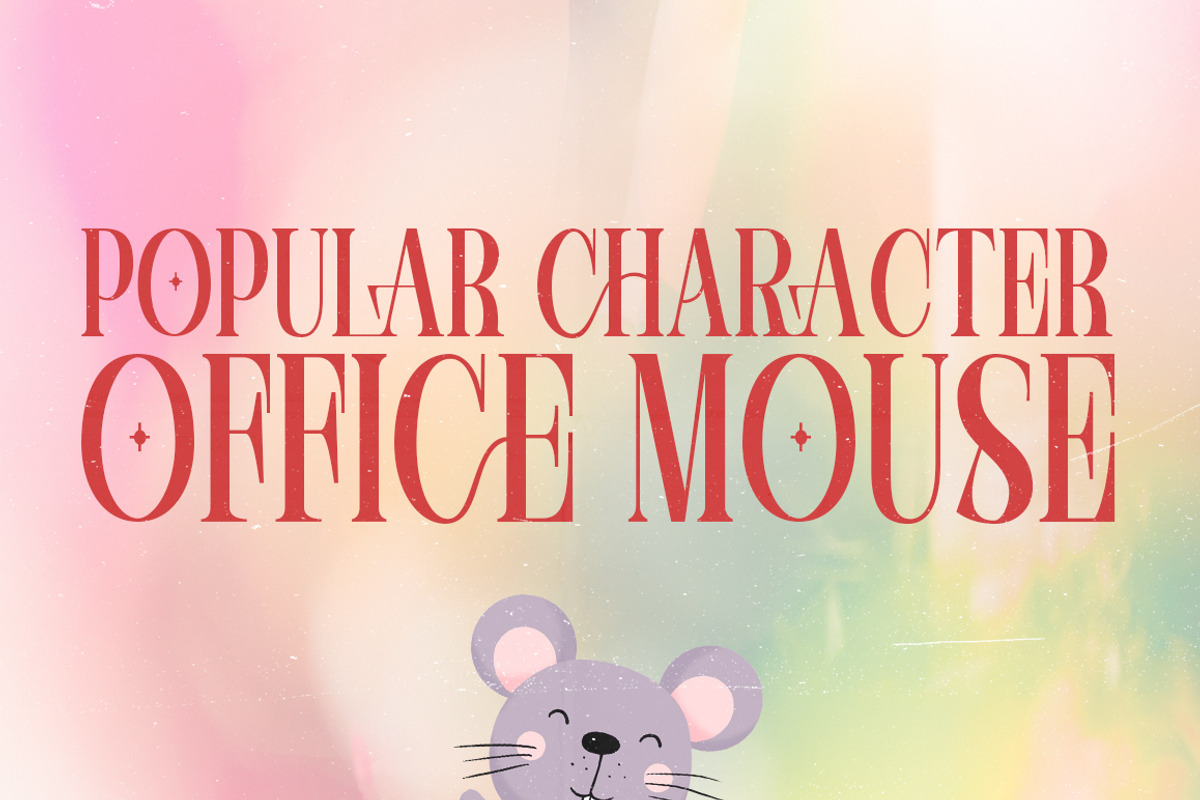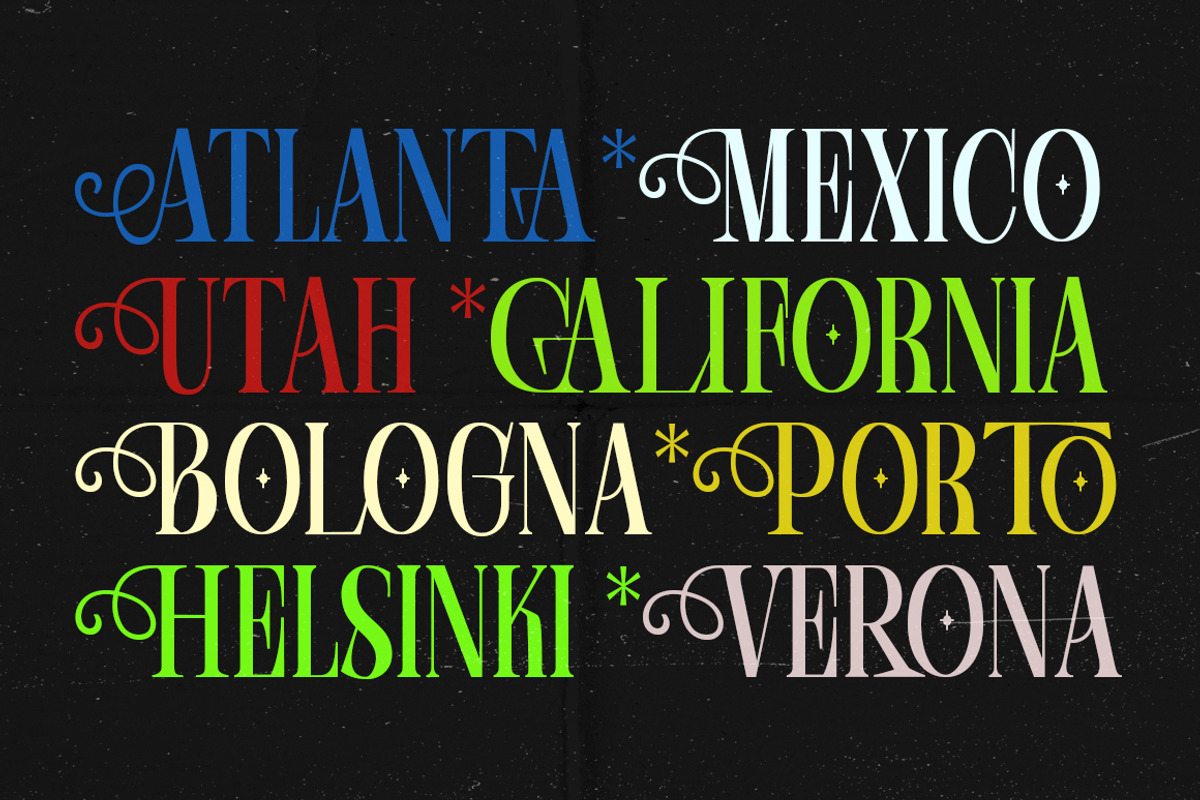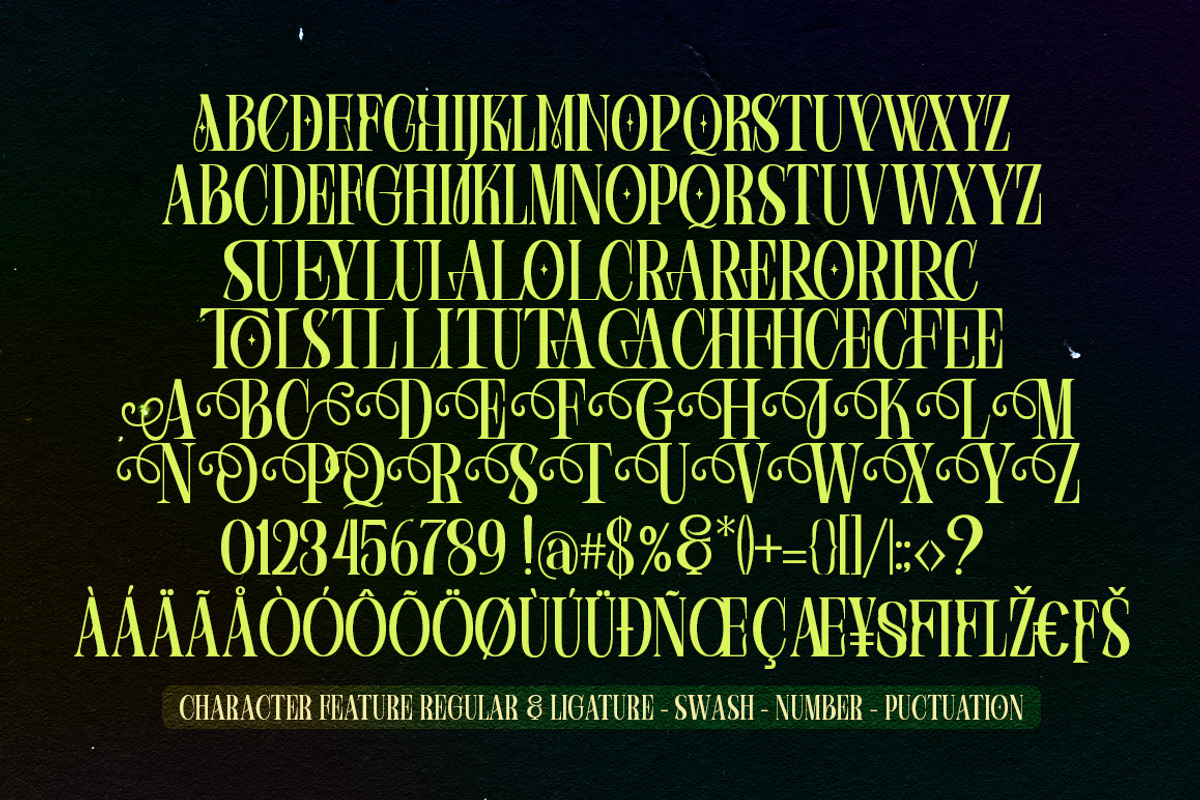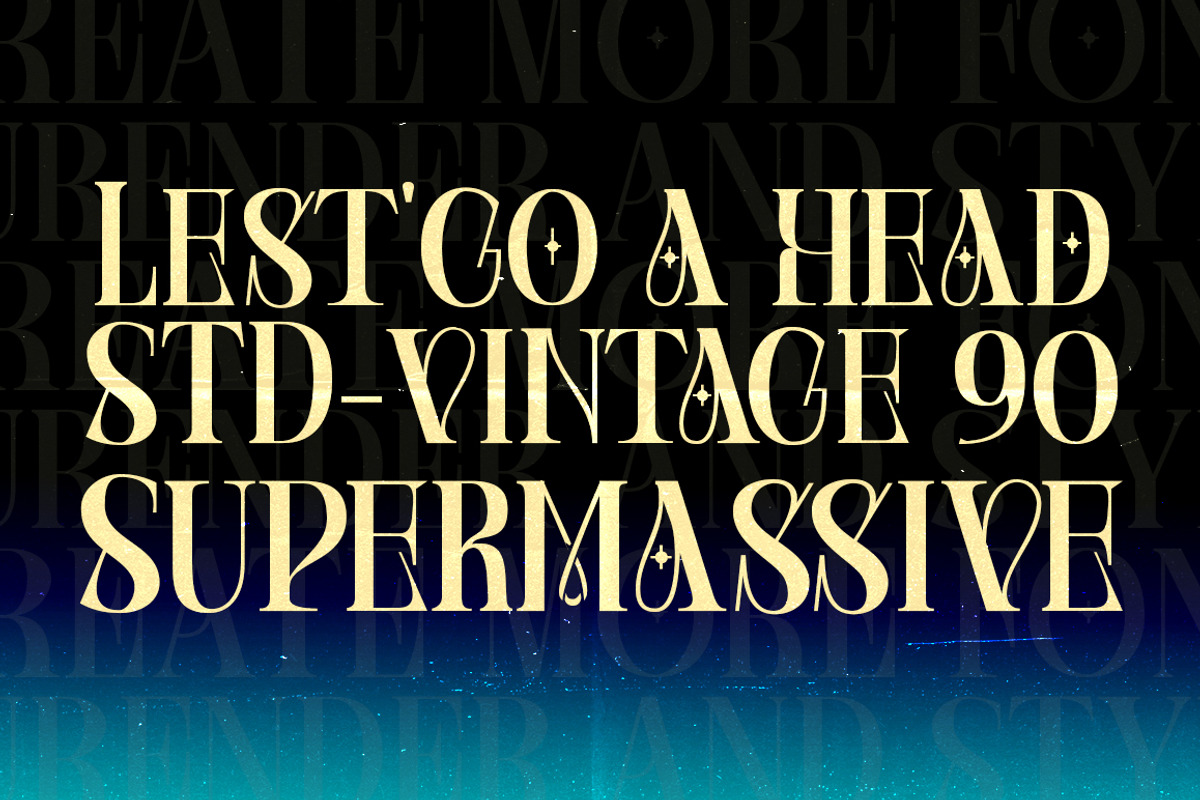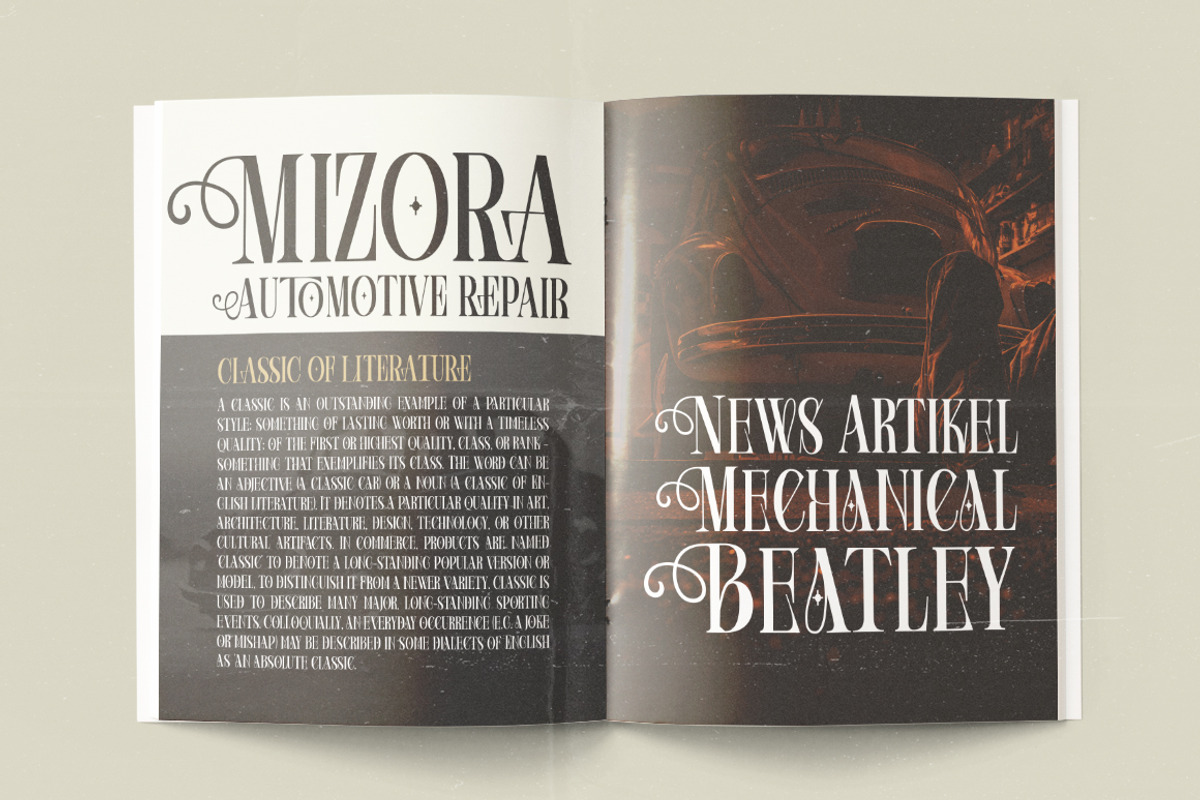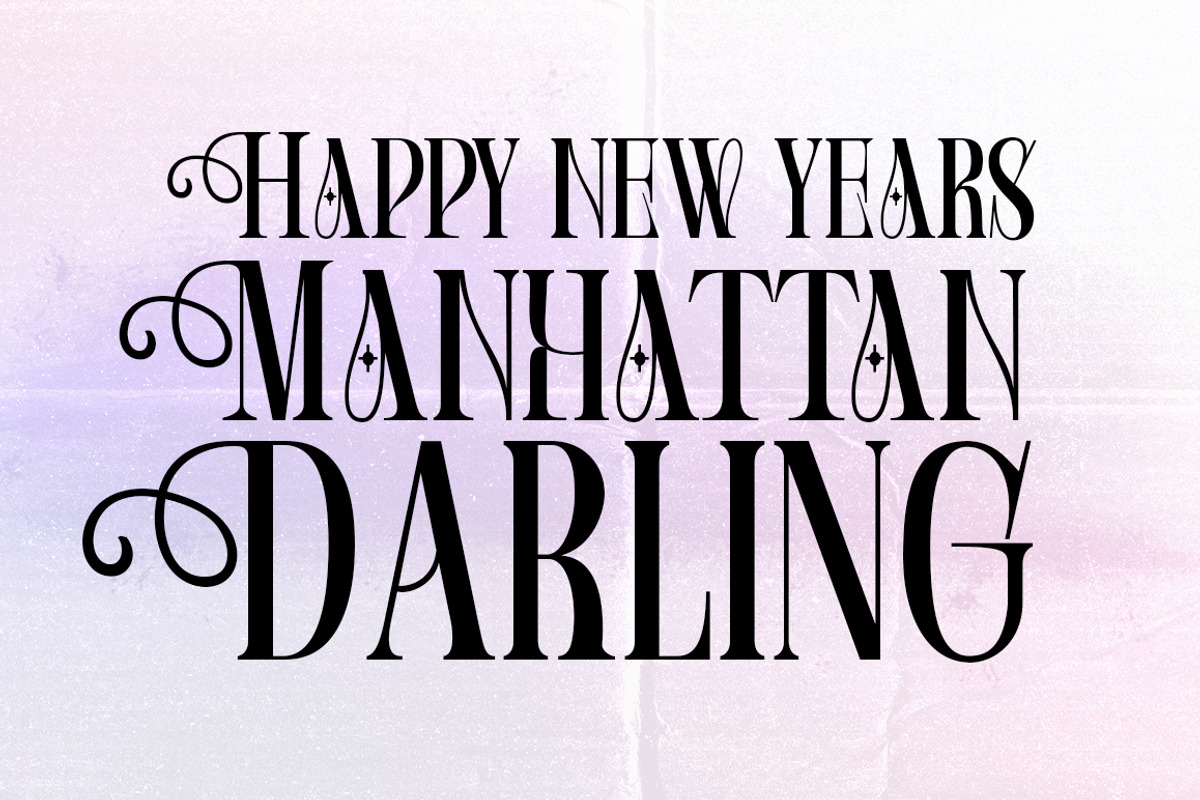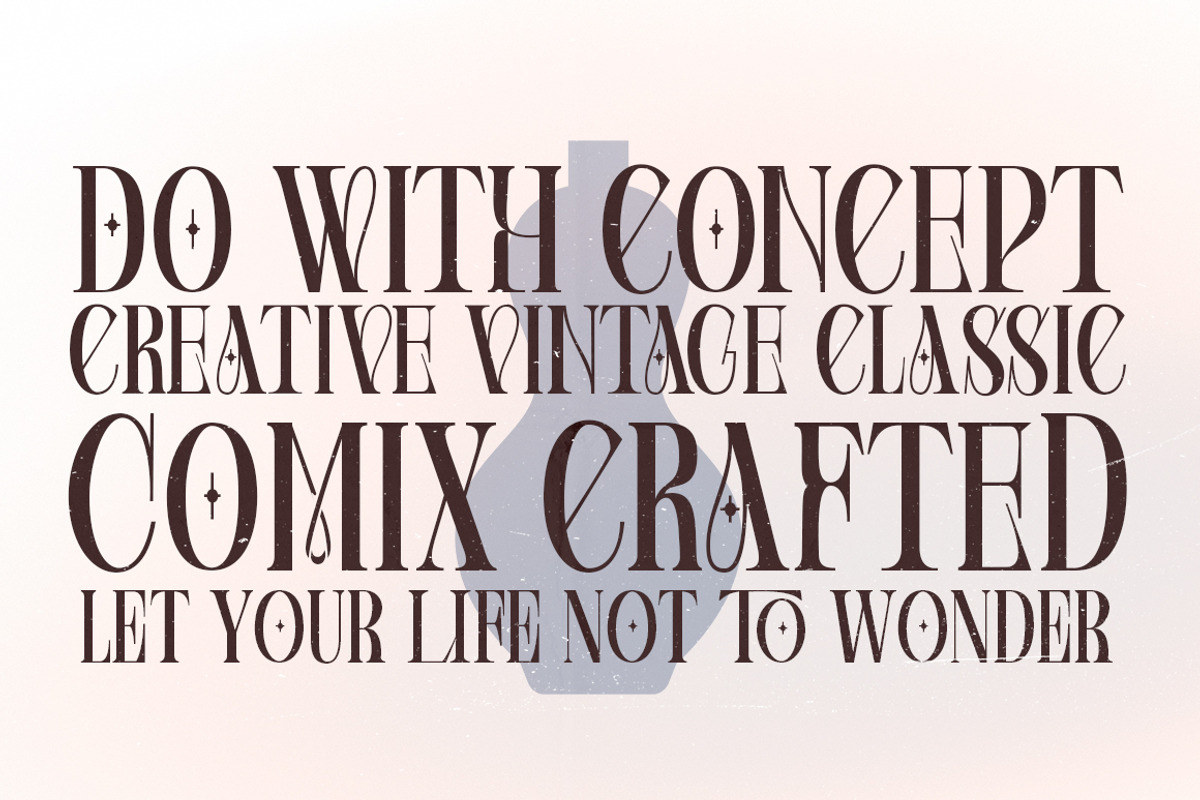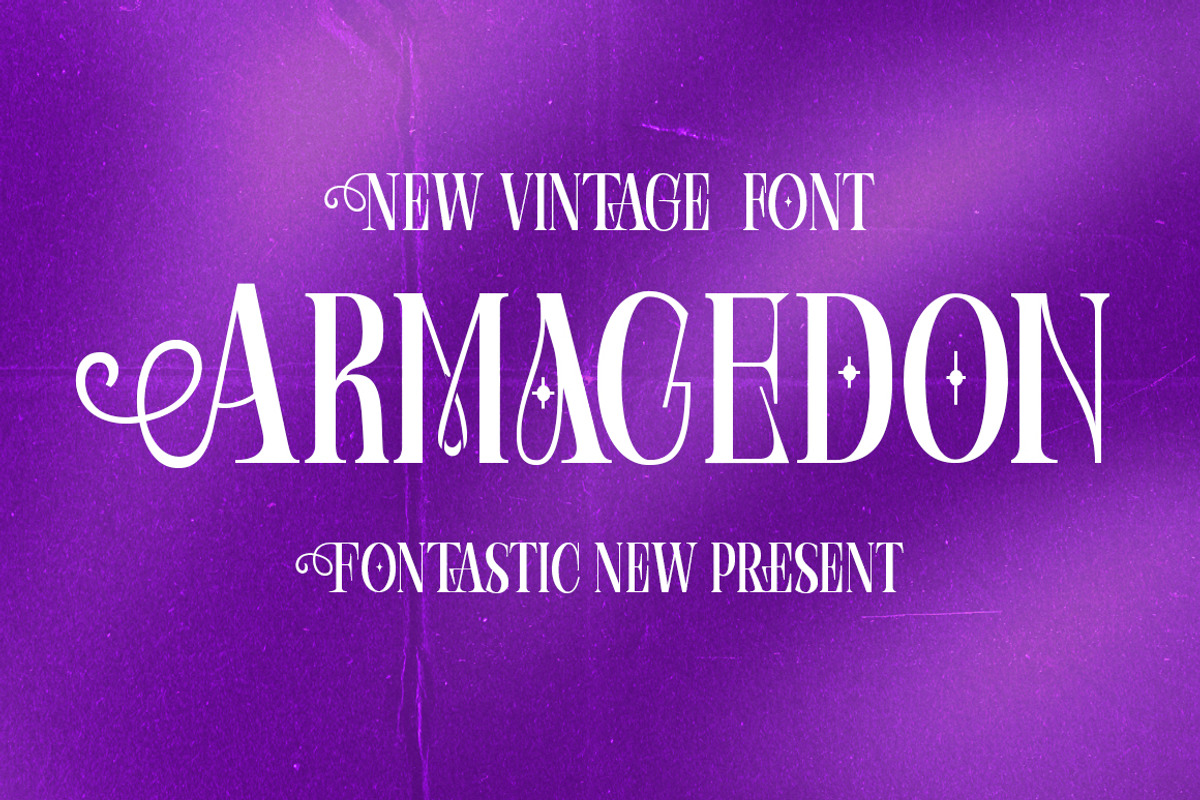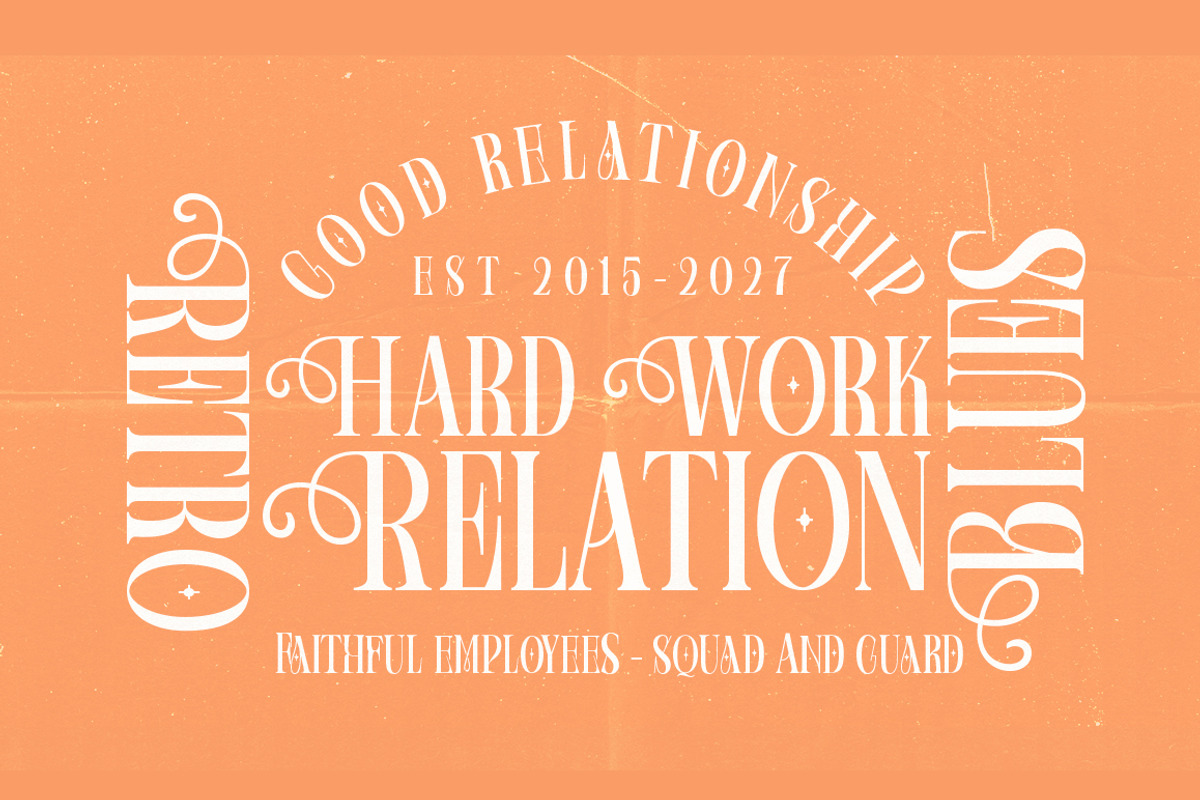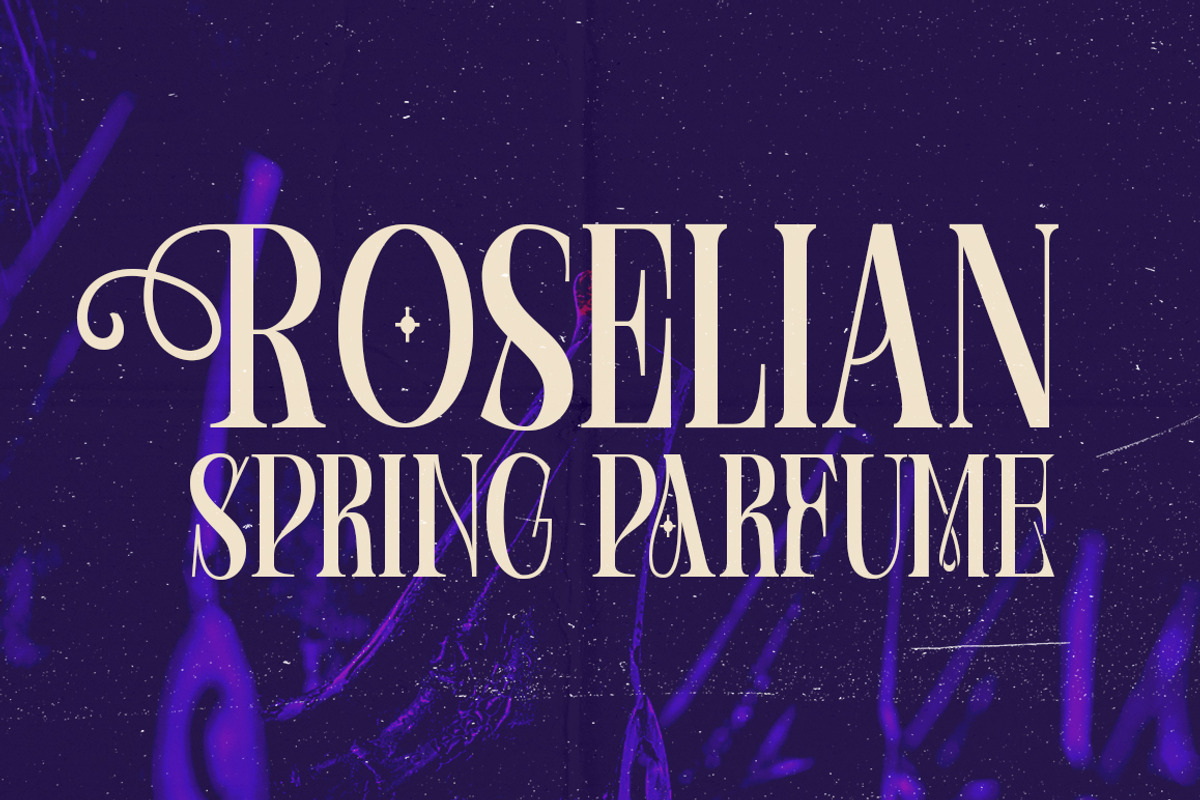
Armagedon
Armageddon is a Retro style with extreme cuts, sharp angles, and interactive straps. The influenced characters are spread across three capitalized subfamilies, each with its own distinct style and personality. The bold character separation and considered ligature standards create a solid, modern, and attractive typeface. have access to a selection of ligature feature styles and swash letter combinations within the armageddon font character for you to collaborate with your design inspiration.
Armagedon is a modern fashion serif font, each letter has been carefully crafted to make your text look unique. Feel free to message me if you have any questions!